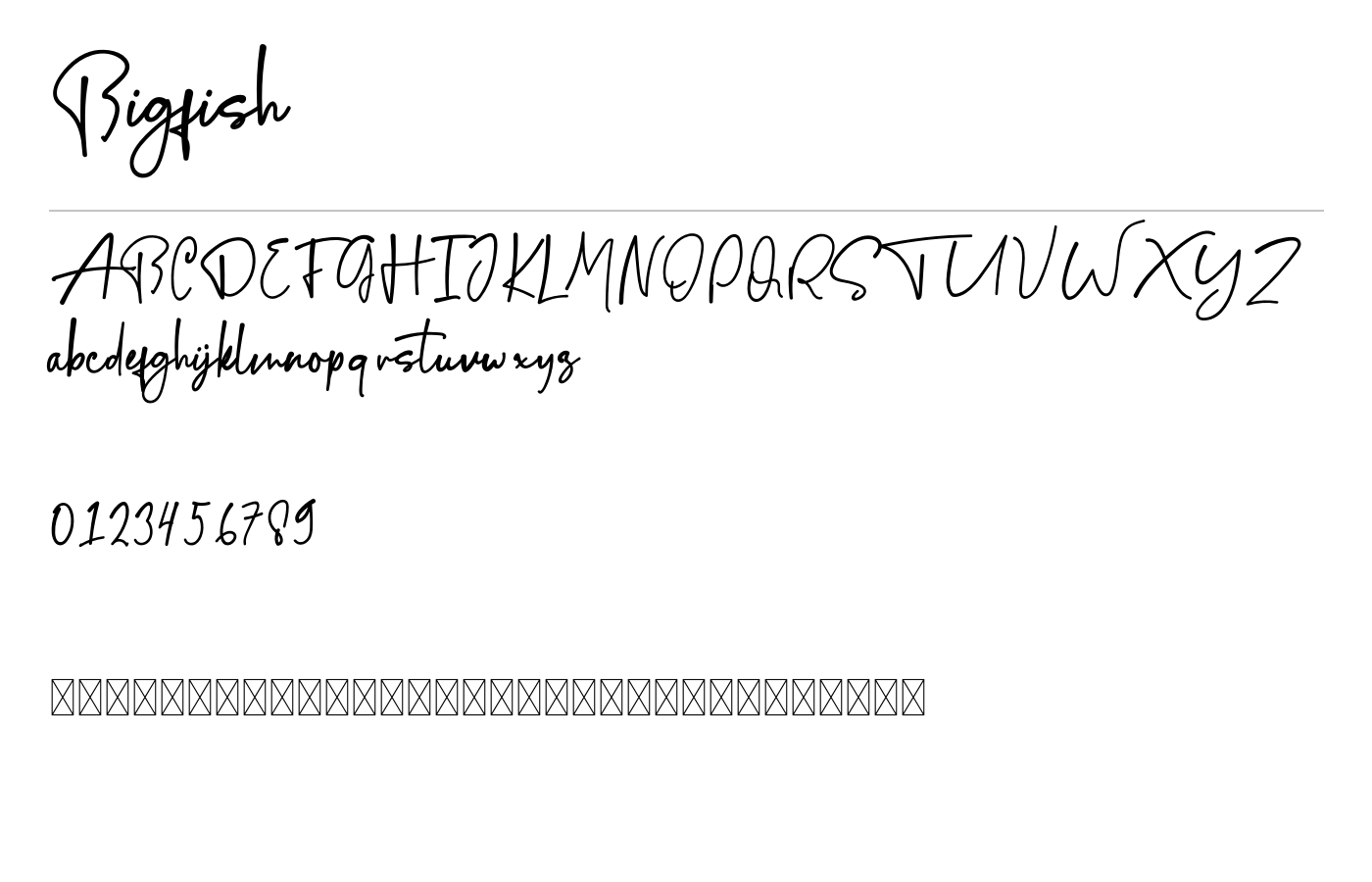
Bigfish is a playful and modern handwritten font with a casual, organic feel. Its tall, narrow letterforms and lively stroke variation give it an approachable, creative personality, making it ideal for branding, invitations, and projects that seek a personal touch. This font works well in headlines or display uses where a fresh, expressive style is desired.
Bigfish Font
About Bigfish Font
| Font family | Bigfish Font |
| Designer | Agung Rohmat |